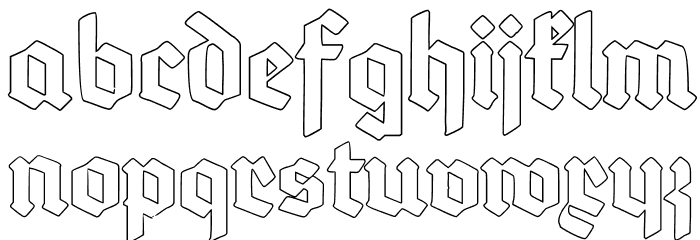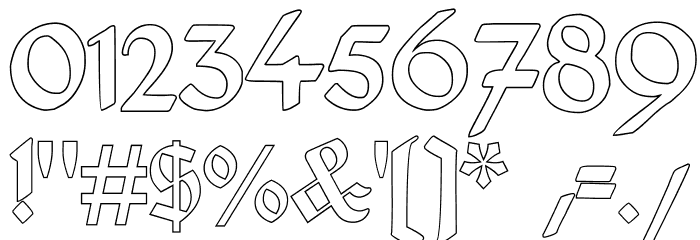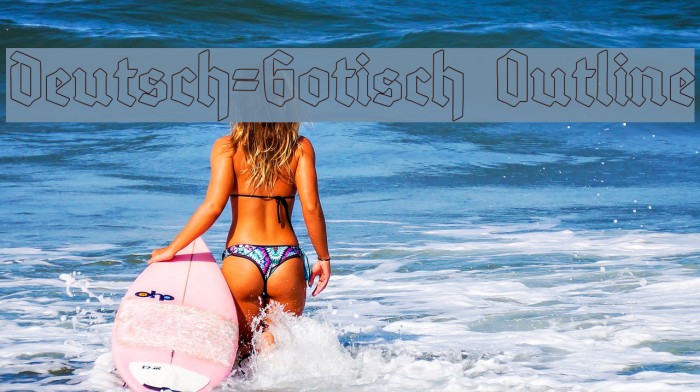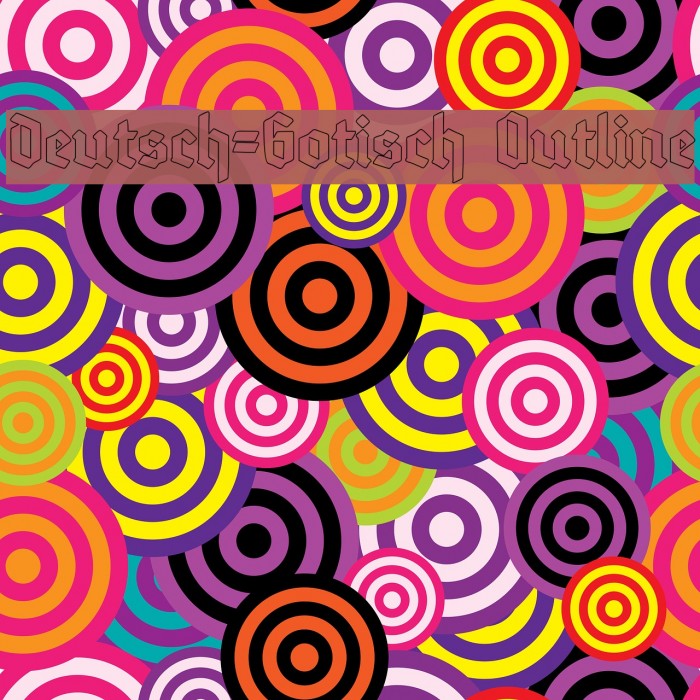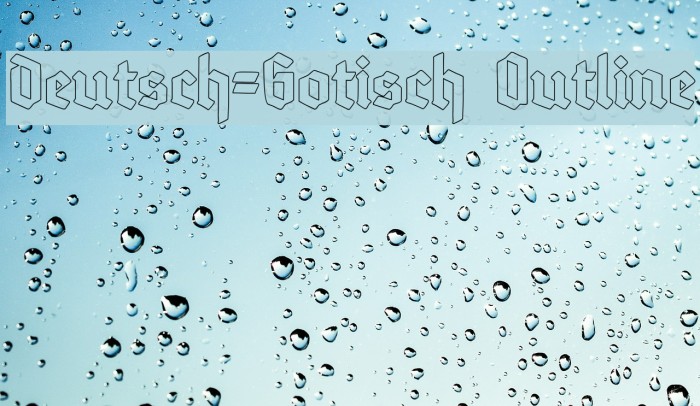
Deutsch-Gotisch Outline Font
This font features a distinct outline style with a Gothic influence, characterized by sharp, angular lines and a medieval aesthetic. The uppercase and lowercase letters maintain a consistent height and width, creating a uniform appearance. The numerals and special characters are designed to match the ornate style of the alphabet, with intricate details that enhance the overall Gothic theme. The font's outline design gives it a unique, airy look while retaining the boldness typical of Gothic scripts.
An outlined Gothic-style font with sharp, angular lines and a medieval aesthetic.
- Proposed Projects: Ideal for projects requiring a historical or medieval theme, such as event posters, book covers, or themed branding.
- Category: Blackletter
- Overall Style: Vintage
- Use Case: Headlines, Logos, Decorative purposes